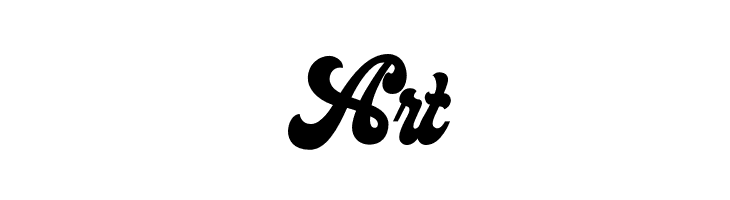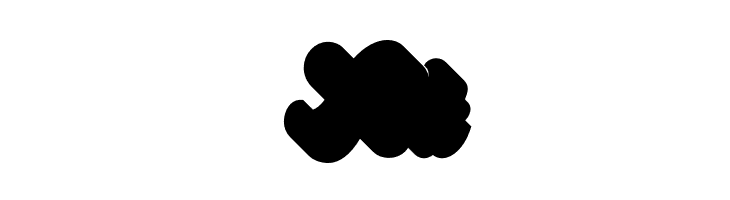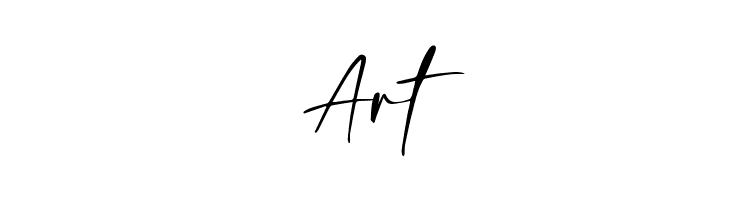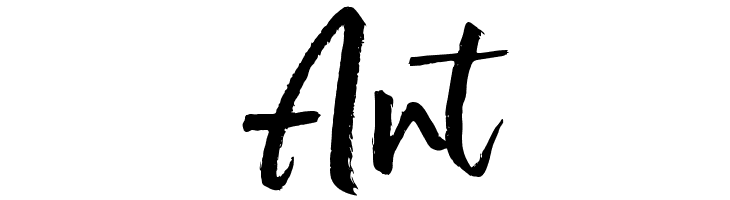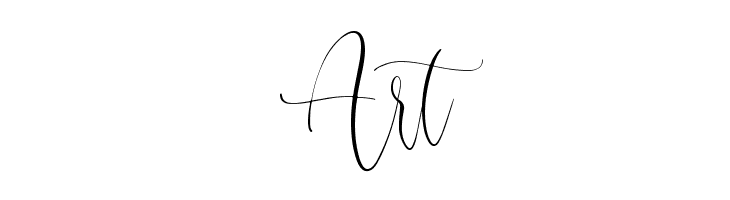
A stylish and elegant script typeface with flowing, interconnected letters.
A graceful script font with fluid, cursive strokes and elegant curves.
A bold, cursive font with a playful and energetic style.
A bold, playful font with a strong shadow effect and rounded characters.
A bold, expressive handwritten font with fluid strokes and a brush-like texture.
A bold slab serif font with a modern twist, offering strength and versatility.
A playful, handwritten font with rounded edges and consistent stroke width.
A lively and expressive handwritten font with fluid, dynamic strokes.
A bold, angular, and geometric font with a strong visual impact.